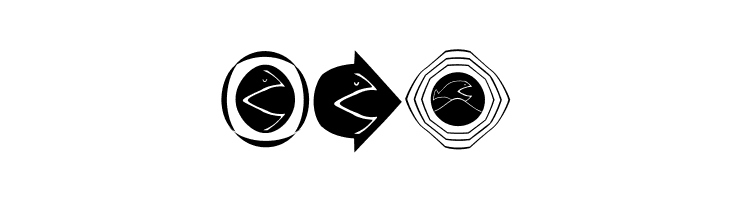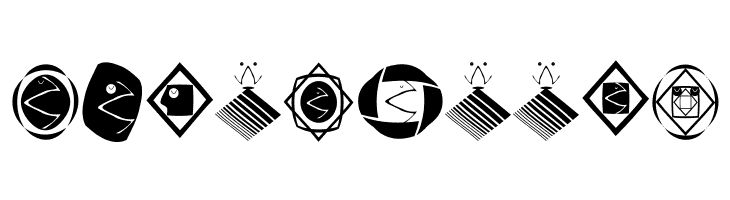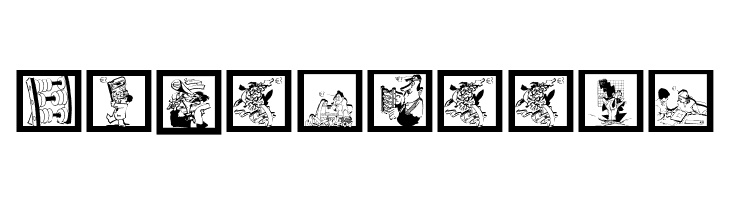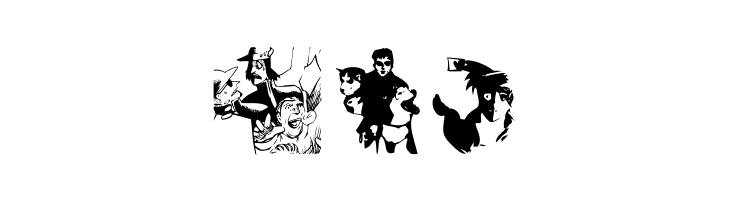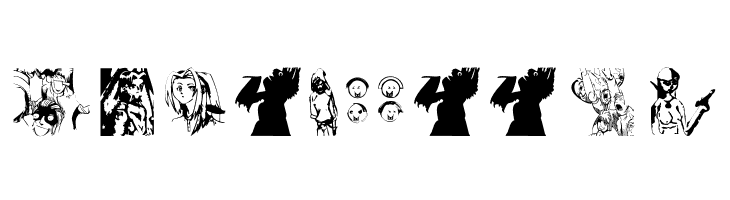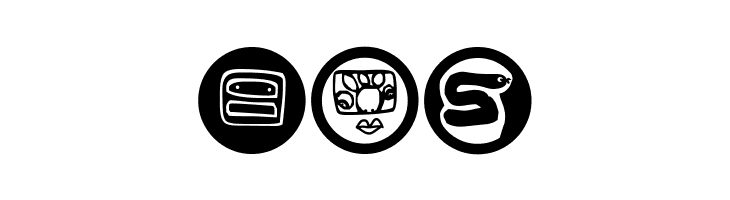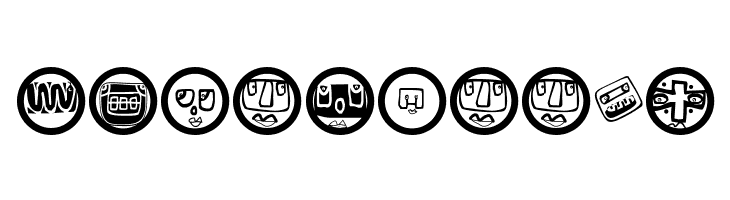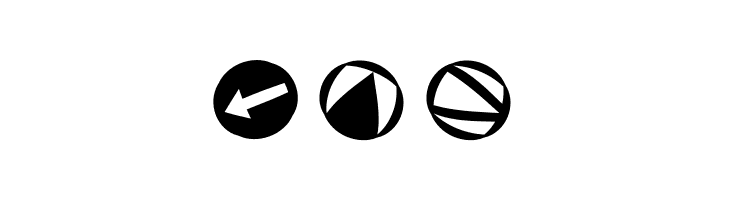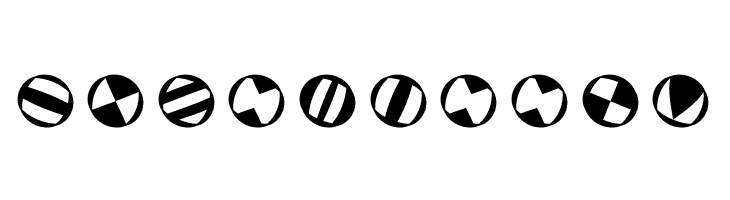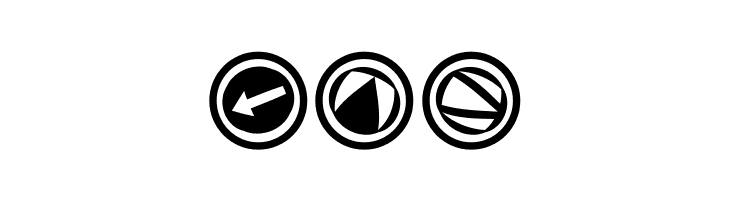
• FishFaces
Abstract, fish-themed decorative font with geometric symbols.
• StrongEuro
A cartoon-style illustrative set representing characters with humorous drawings.
• MangaManjana
A decorative manga-inspired font with illustrated characters.
• HiddenSignsRings
Decorative pictographic font with ancient, glyph-like symbols in bold circles.
• TypoSymbolsRound
A playful, circular font with abstract geometric designs.
• TypoSymbolsTwo
A playful set of bold, circular symbols with high-contrast designs.
• Krabbeltiere
A decorative dingbat font featuring insect and bug silhouettes.
• SurrealsmKTwo
A decorative font with surreal and abstract illustrations within each character.
• KleinsBrokenGotik
A bold, angular Blackletter font with historical elegance.
• MouseVectorarts
Abstract, illustrative font with unique vector art for each character.